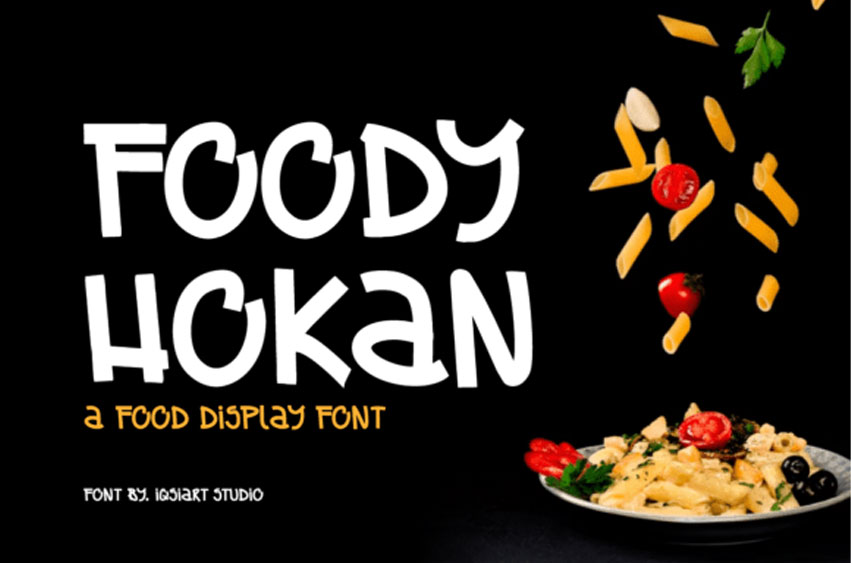
Foody Hokan Font is a bold and playful display font designed to capture the delicious spirit of food-inspired creativity. With chunky shapes and an energetic style, this font brings a lively, mouthwatering touch to your projects.
Perfect for restaurant branding, menus, café boards, packaging, cooking blogs, recipe books, food festival posters, and fun social media graphics, Foody Hokan instantly grabs attention with its cheerful and tasty personality.
Whether you are designing eye-catching titles for a food brand or creating playful designs for personal projects, Foody Hokan is the ideal choice to make your work stand out with flavor and fun.